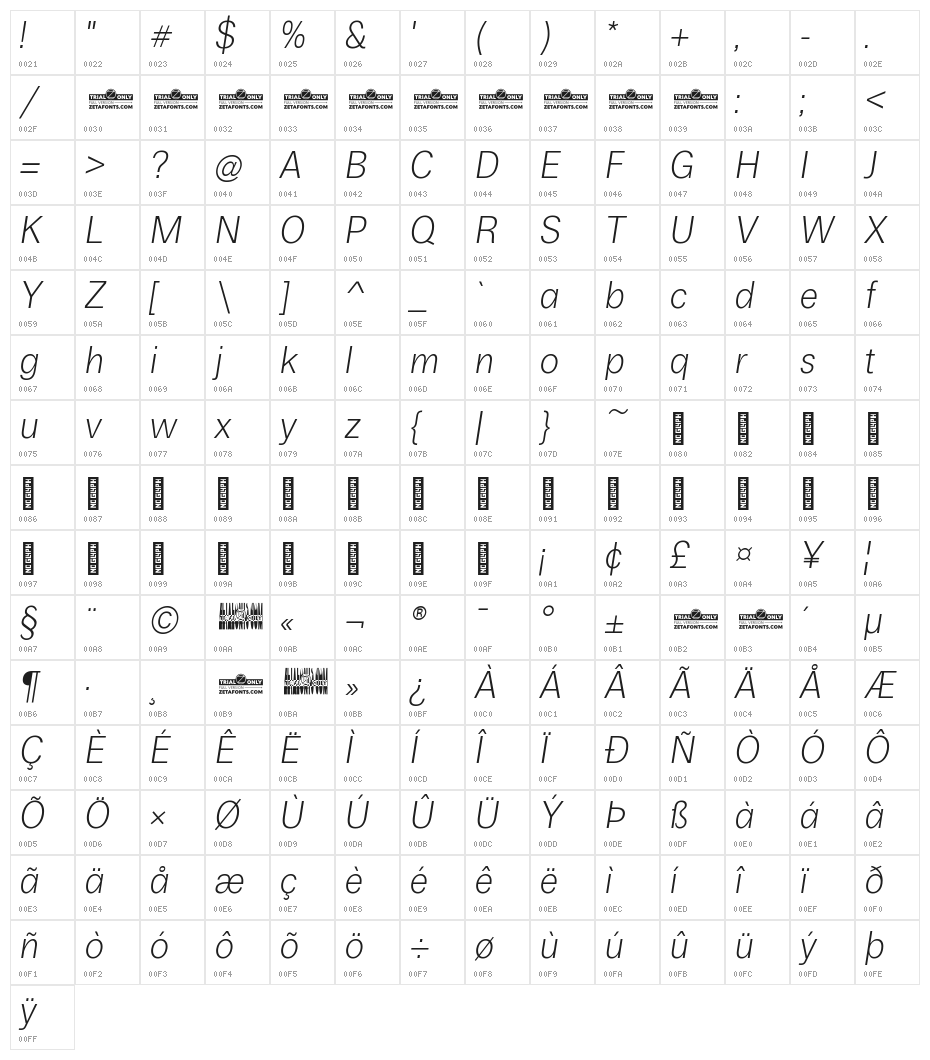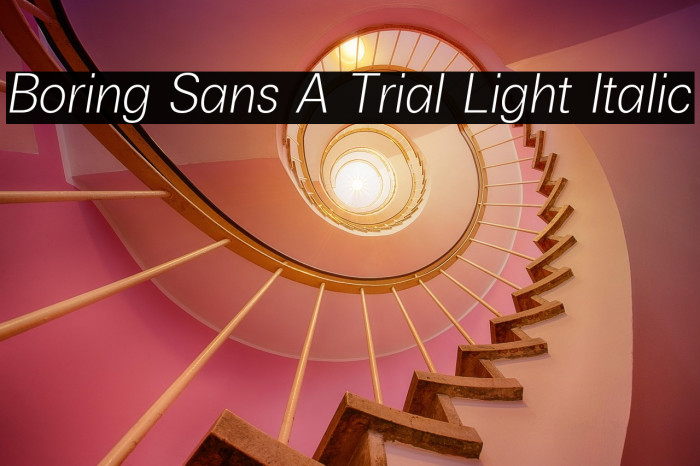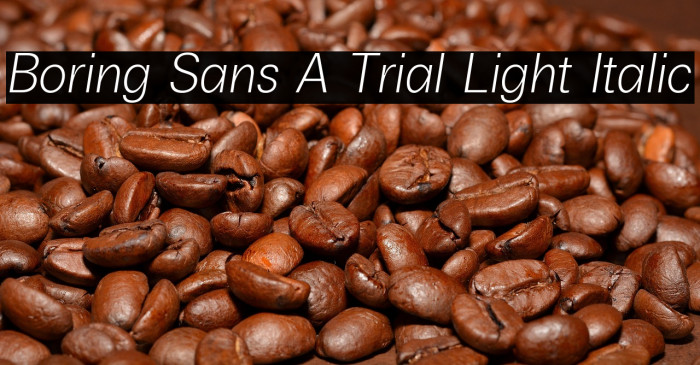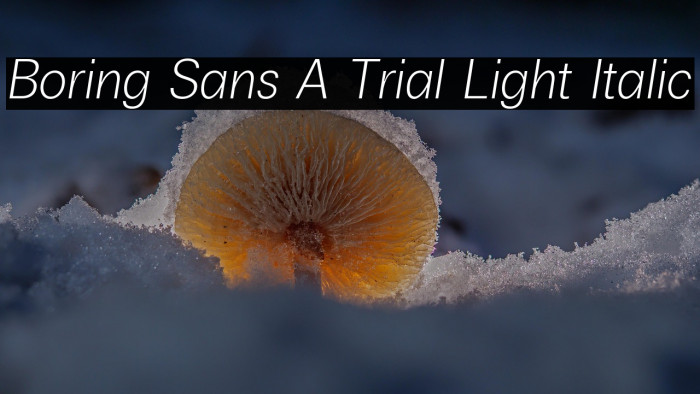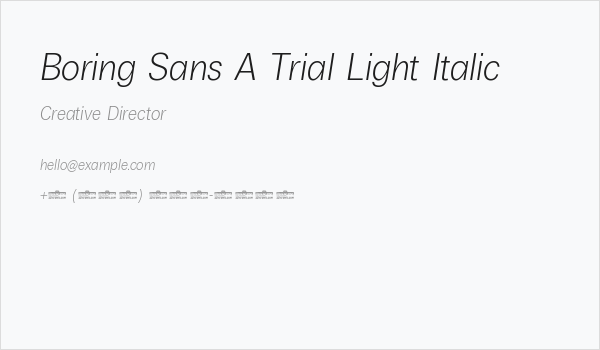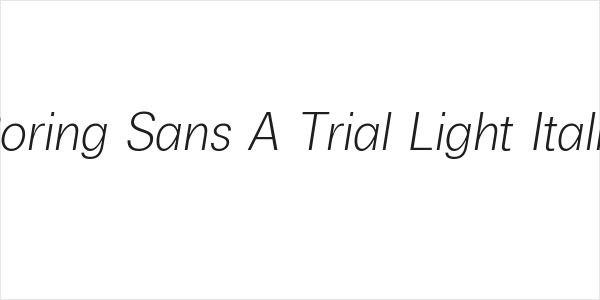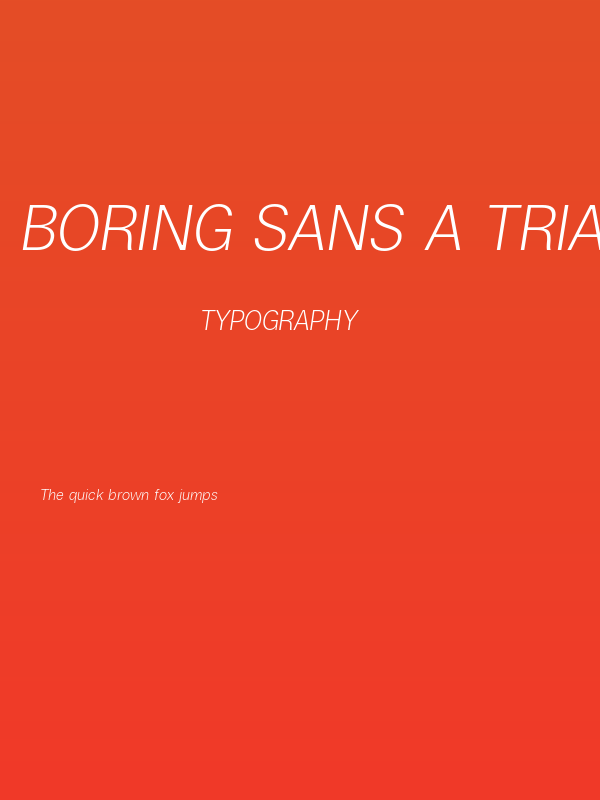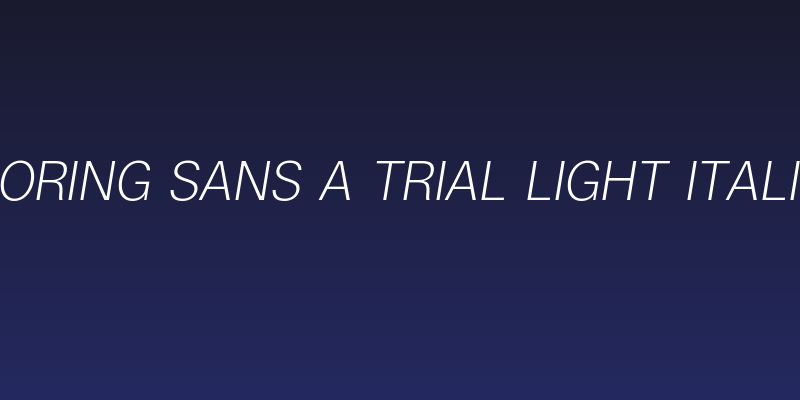
Boring Sans A Trial Light Italic Font
Boring Sans A Trial Light Italic Description
This font features a clean and modern sans-serif style with a light weight and italicized form. The characters are sleek and slightly elongated, giving a sense of elegance and sophistication. The uppercase and lowercase letters maintain a consistent design, with smooth curves and straight lines. The numerals and special characters are designed to complement the overall aesthetic, ensuring readability and style. The font's simplicity and clarity make it versatile for various design applications.